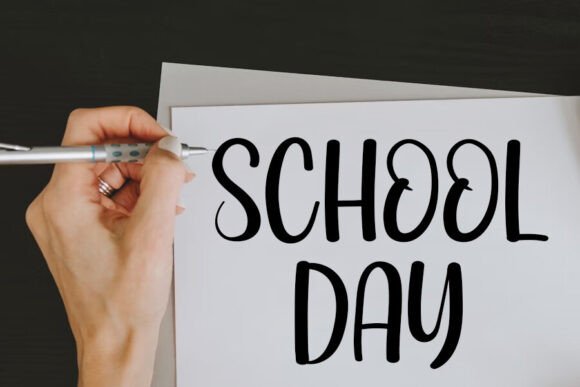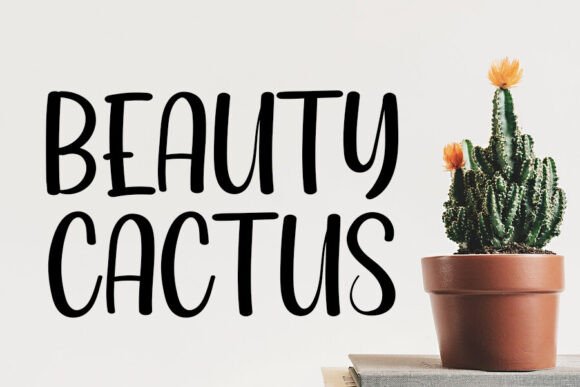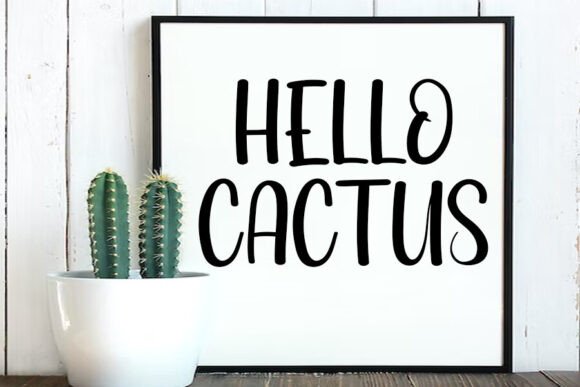
Baby Disney Font
Introducing Baby Disney, a charming and delightful font destined to elevate your design projects. It flawlessly infuses a sense of freshness and beauty into creations such as YouTube banners, logo mockups, and wedding invitations. It’s also ideal for ID cards, flyers, and a plethora of crafts. Embrace this simple yet distinctive font to ignite progression and development in your architectural endeavors. Baby Disney’s simplicity paired with its unique charm is sure to set your designs apart.